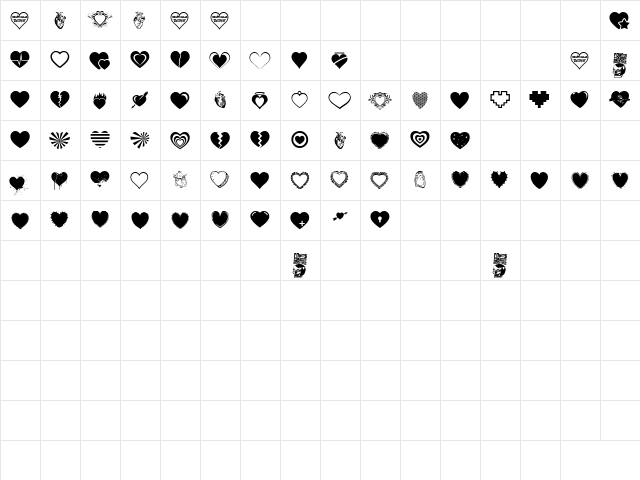
Hearts Salad Regular
| Designer | Woodcutter Manero |
Design Context for Hearts Salad Typeface
Hearts Salad is a composed and adaptable typeface that performs quietly and consistently across a wide range of design contexts.